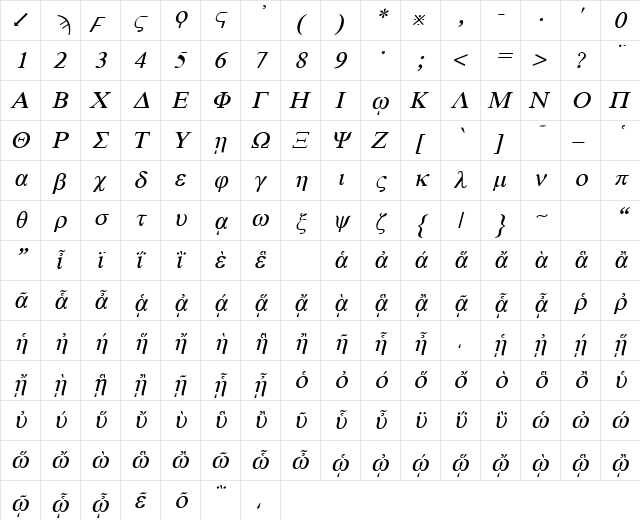
Standard Greek Italic
Design Context for Standard Greek Typeface
Standard Greek offers clean, dependable letterforms without strong stylistic allegiance, making it a practical choice for designers who need flexibility. The slanted form adds forward momentum and visual energy.
Pro Tip: Try Standard Greek for annotation and caption copy alongside an upright companion — the contrast in angle creates a dynamic but ordered typographic system.